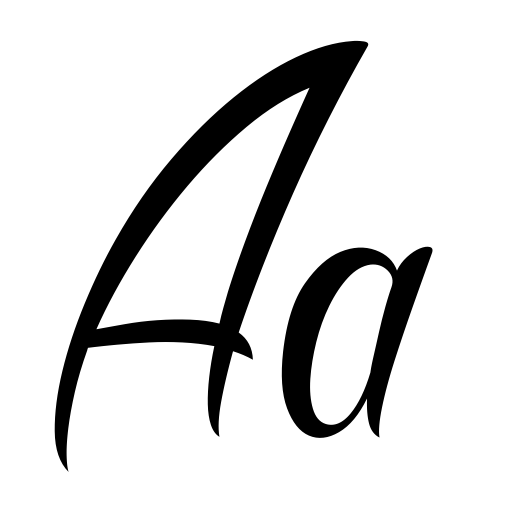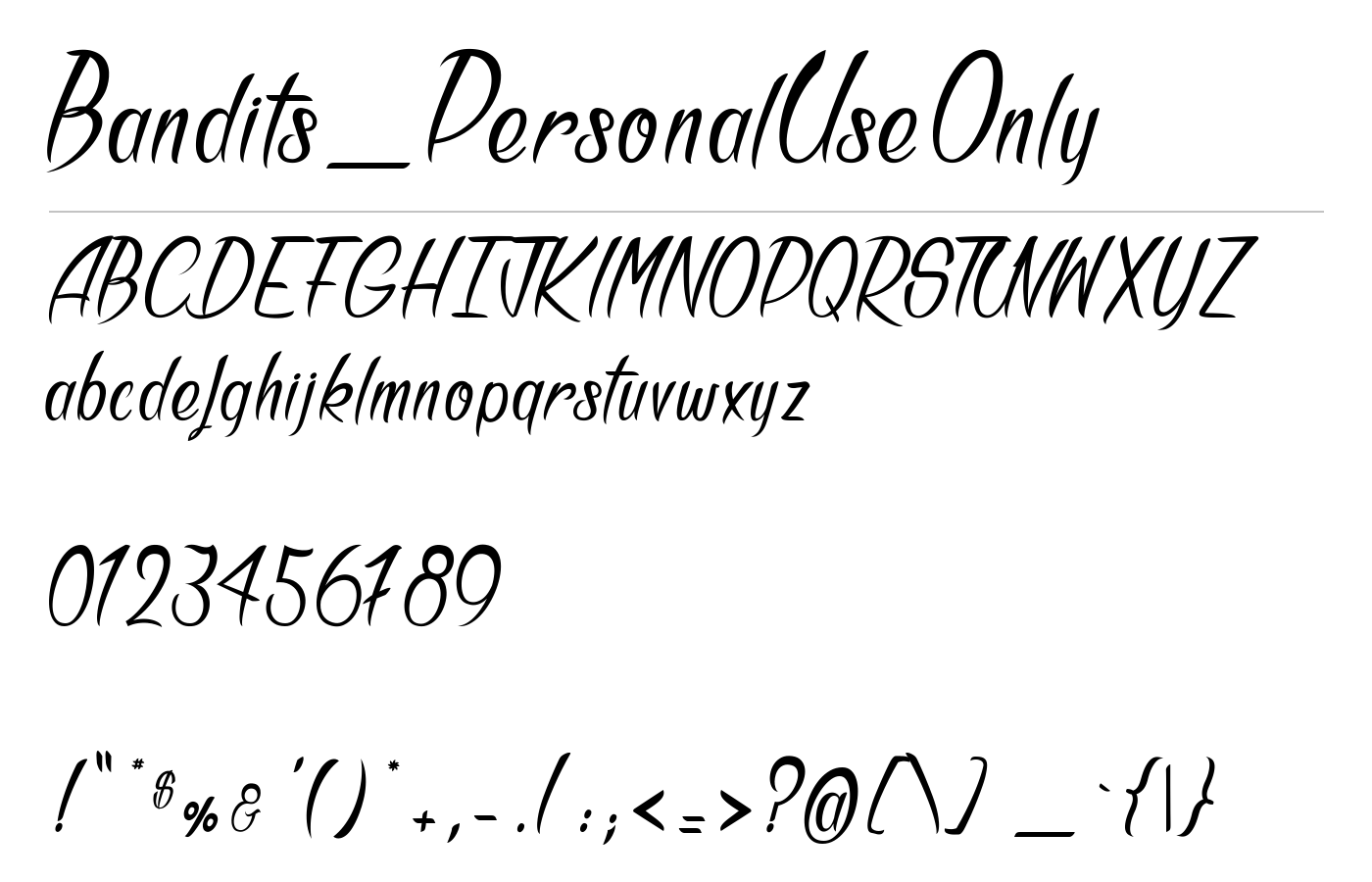
Bandits_PersonalUseOnly is a stylish, cursive script font with a lively and dynamic feel. Its slender, slightly condensed letterforms feature fluid strokes and subtle variations in thickness, evoking a handwritten, artistic vibe that balances elegance with casual flair. This font works wonderfully for creative branding, invitations, and headlines where a personal, expressive touch is desired.
Bandits_PersonalUseOnly Font
About Bandits_PersonalUseOnly Font
| Font family | Bandits_PersonalUseOnly Font |